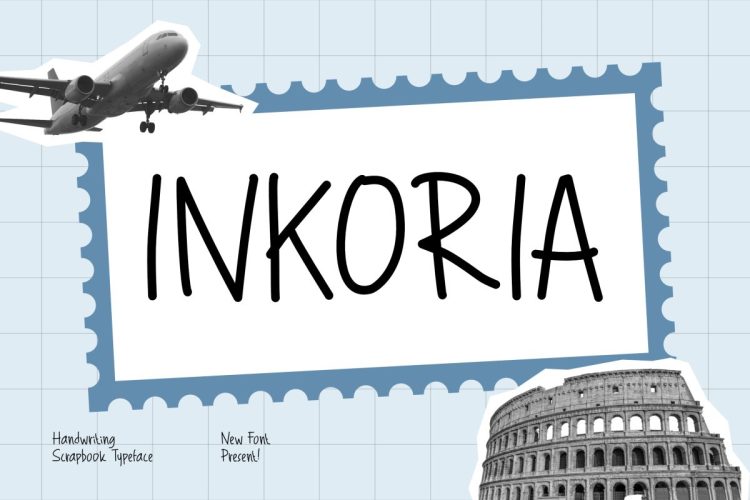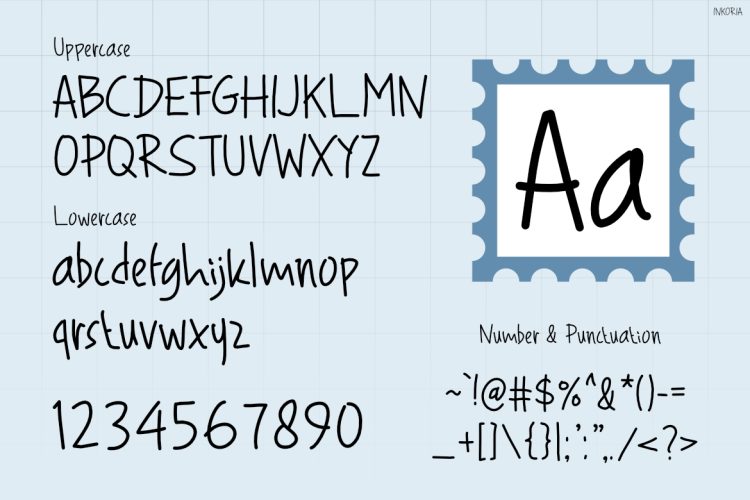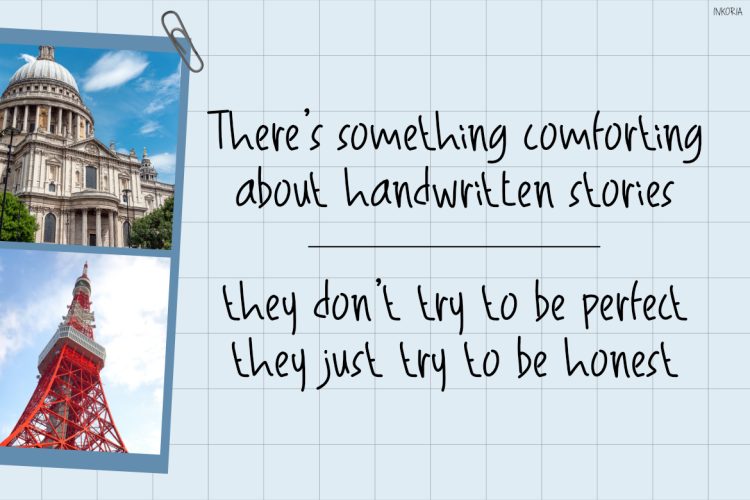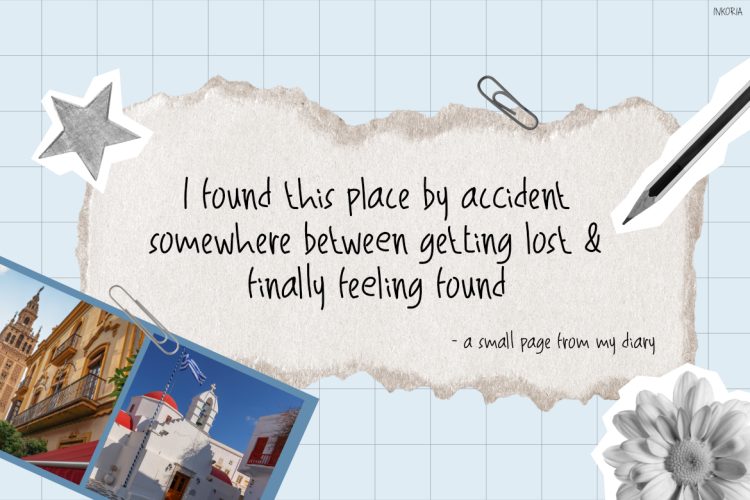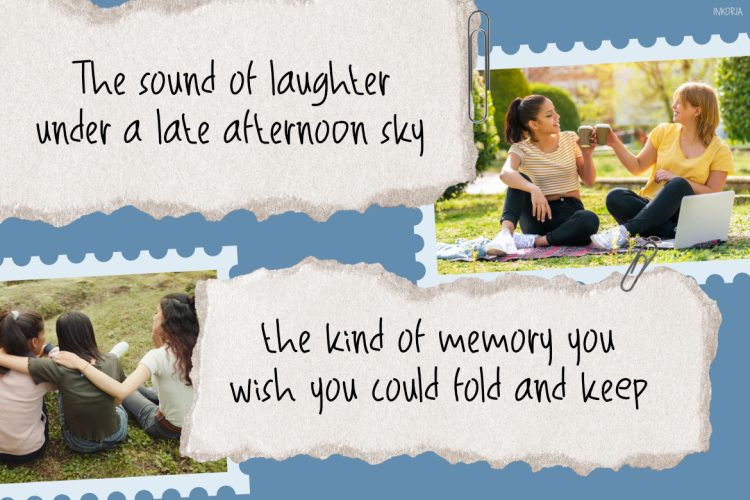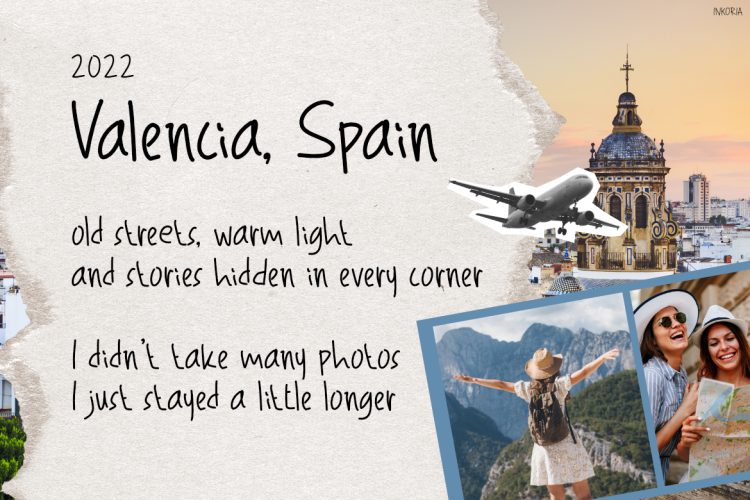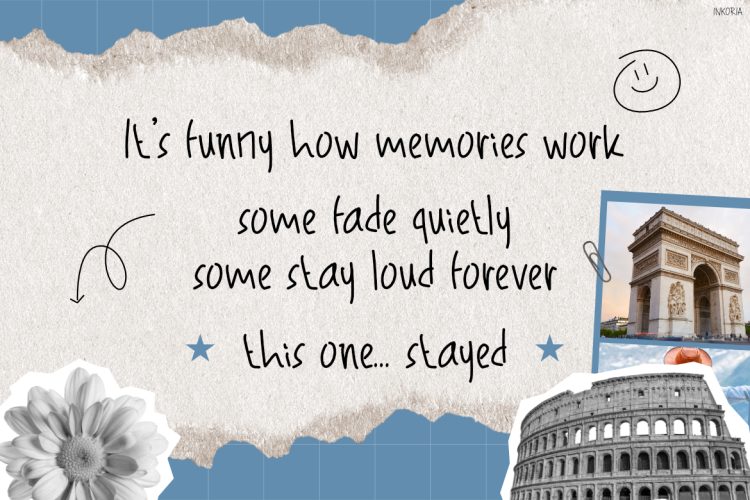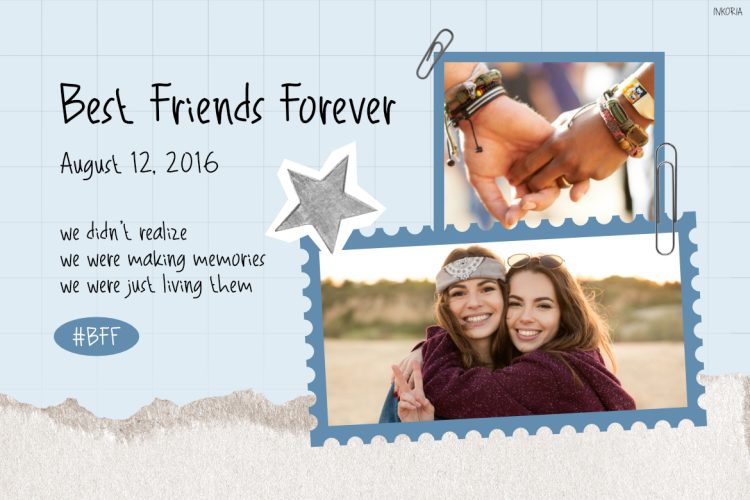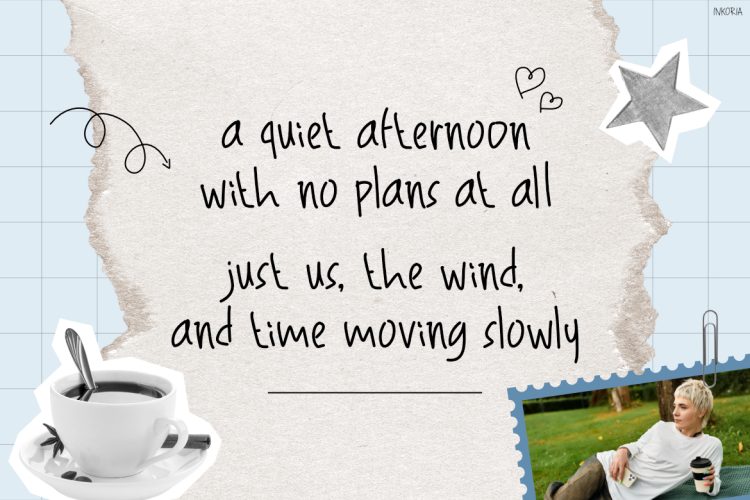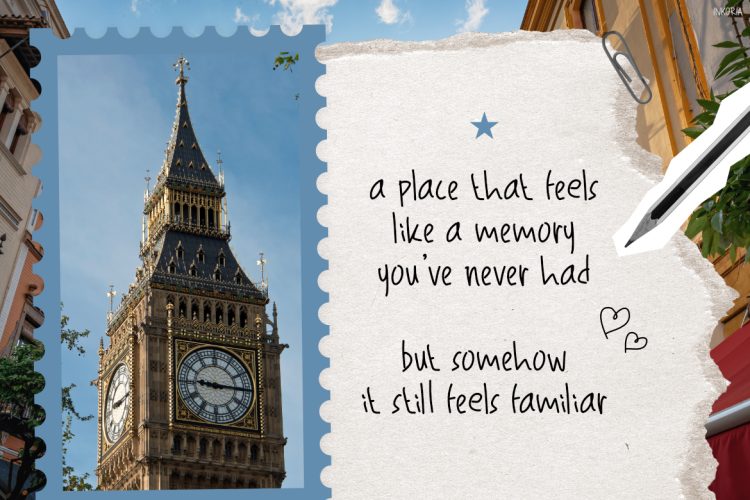
INKORIA โ Honest Handwritten Notes Font
Instagram Font INKORIA brings a natural handwritten style with a warm and personal feel. The font looks expressive, casual, and easy to read. Moreover, its marker-inspired strokes create an authentic handwritten texture that feels honest and emotional. Every letter looks soft and organic. As a result, your designs feel more human and relatable. In addition, the scrapbook-inspired aesthetic adds a trendy and nostalgic mood. Therefore, this font is perfect for creators who want a clean handwritten look with strong personality.
Why INKORIA Stands Out
INKORIA combines natural handwriting with balanced readability. Even so, the font still keeps a playful and artistic appearance. The letterforms feel spontaneous yet polished enough for professional projects. Furthermore, the spacing keeps every word clear and visually comfortable. The font works beautifully with travel photos, collage layouts, vintage textures, and minimalist designs. Meanwhile, it also adds emotion to quotes, captions, and personal notes. Because of its flexible style, INKORIA fits both playful and elegant themes with ease.
Instagram Font INKORIA Perfect For
INKORIA is ideal for content creators, travel bloggers, scrapbook artists, and lifestyle brands. In addition, it works perfectly for stationery shops, photographers, and social media designers. You can use it for Instagram posts, Pinterest graphics, travel journals, postcards, moodboards, and digital planners. Likewise, the font looks stunning on cafรฉ branding, notebook covers, packaging, and handwritten logos. Whether you create digital or print projects, INKORIA helps your visuals feel warm, stylish, and authentic.
Make Your Designs Feel More Personal
Bring emotional storytelling into your designs with Instagram Font INKORIA. Not only does the font feel friendly, but it also creates a memorable visual atmosphere. As a result, your content becomes more approachable and engaging. The handwritten style instantly adds a cozy and aesthetic touch across creative projects. So, if you want your designs to stand out naturally, INKORIA is the perfect choice. Get INKORIA today and give your projects a genuine handwritten character.